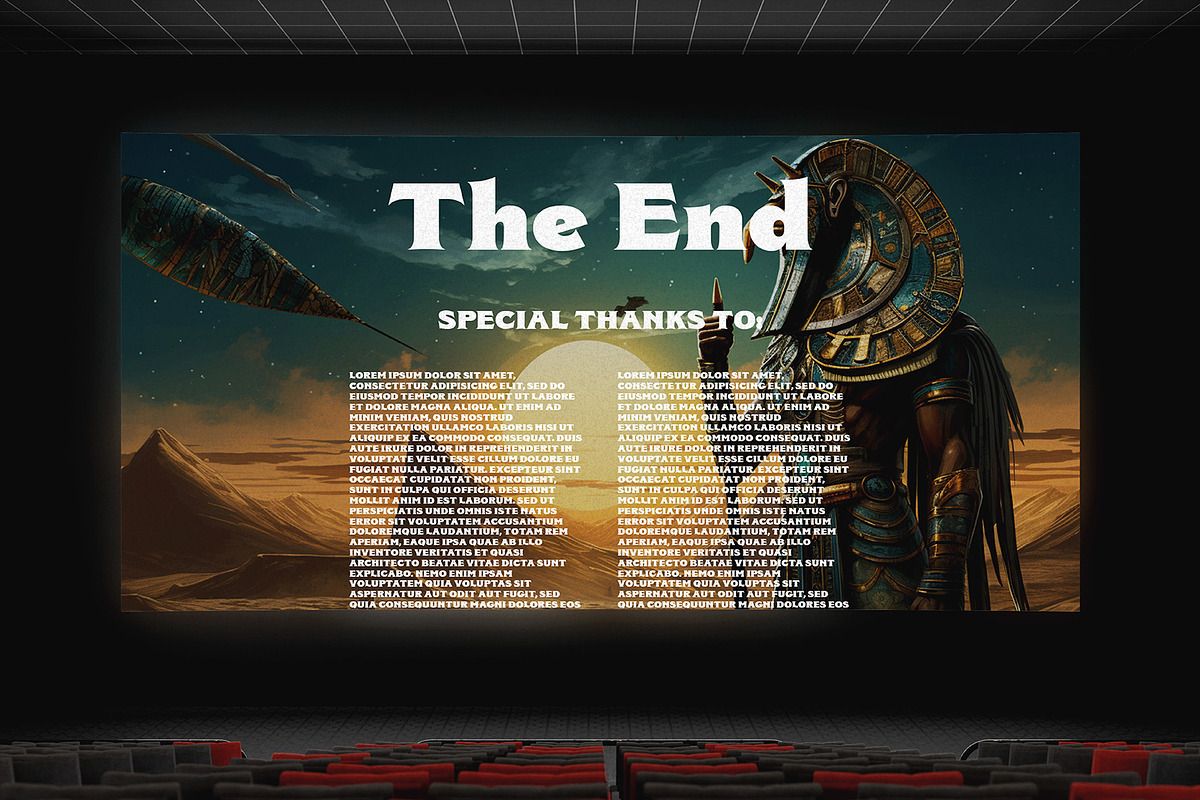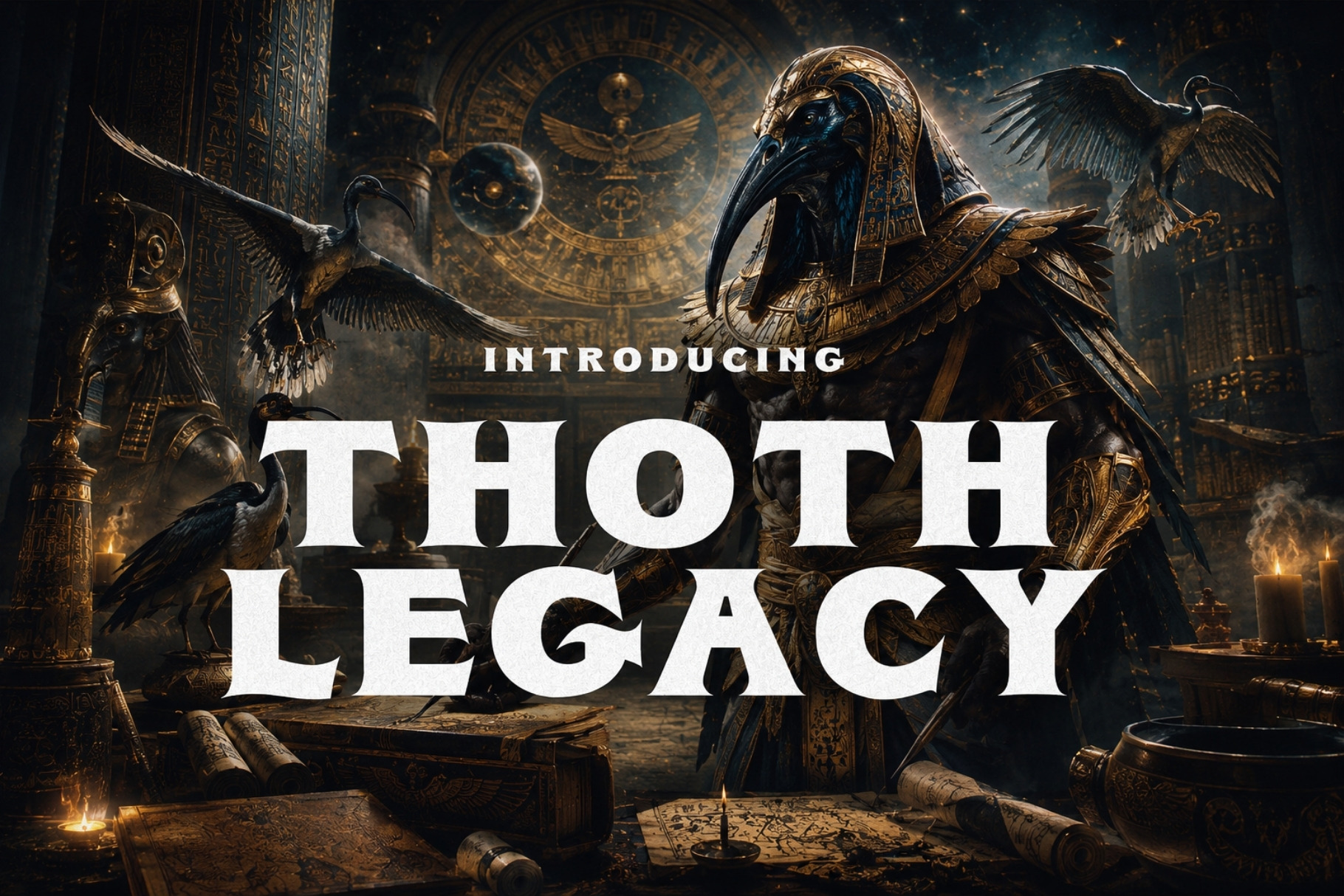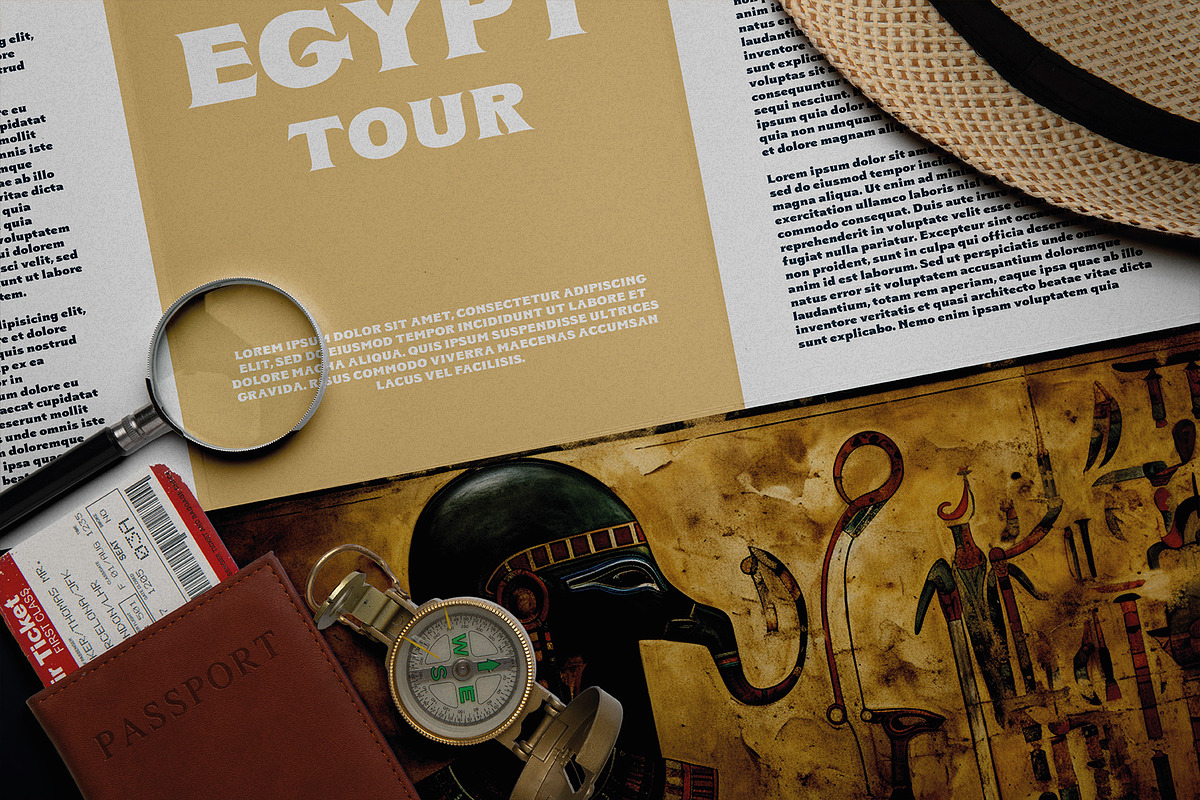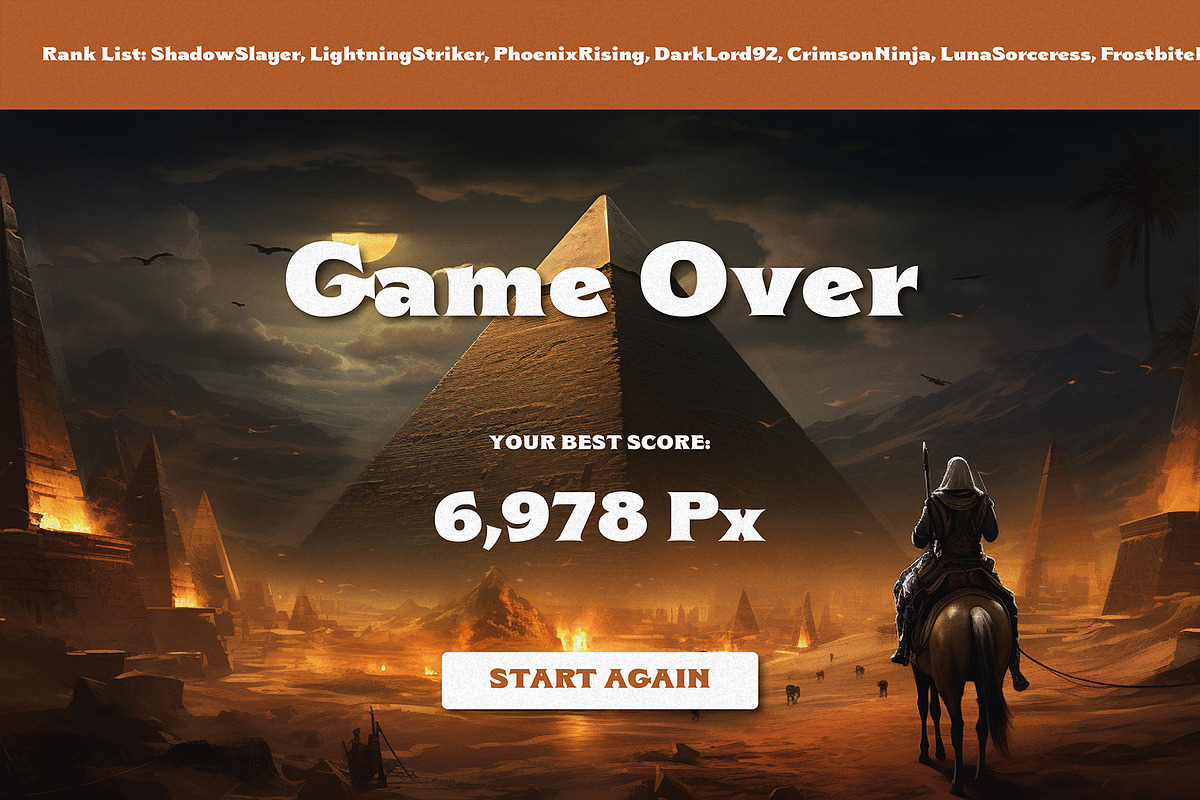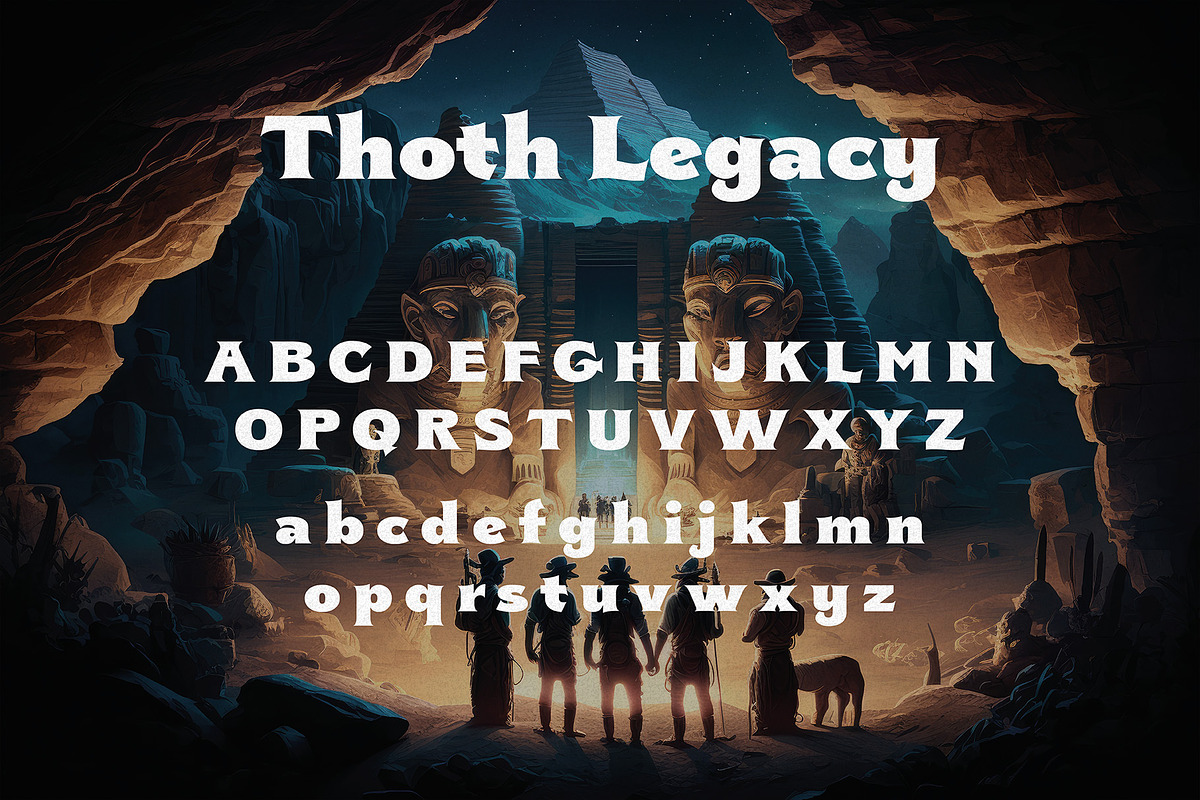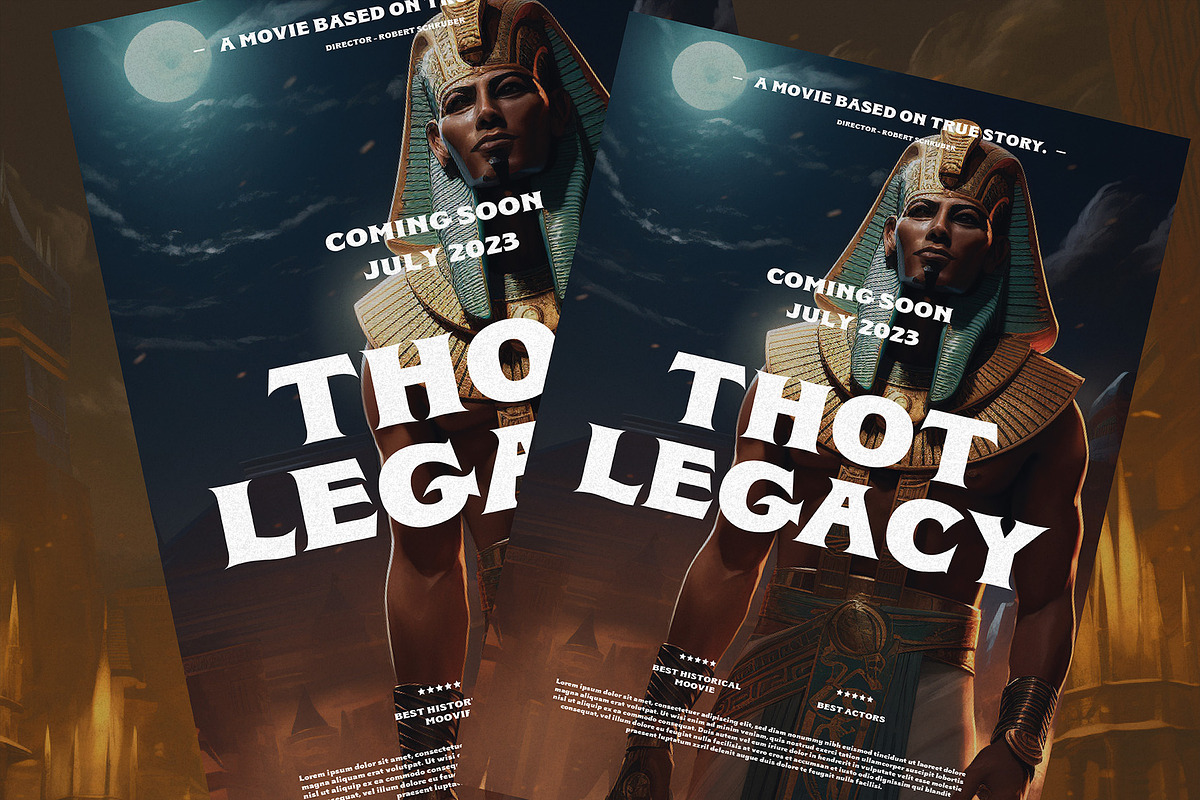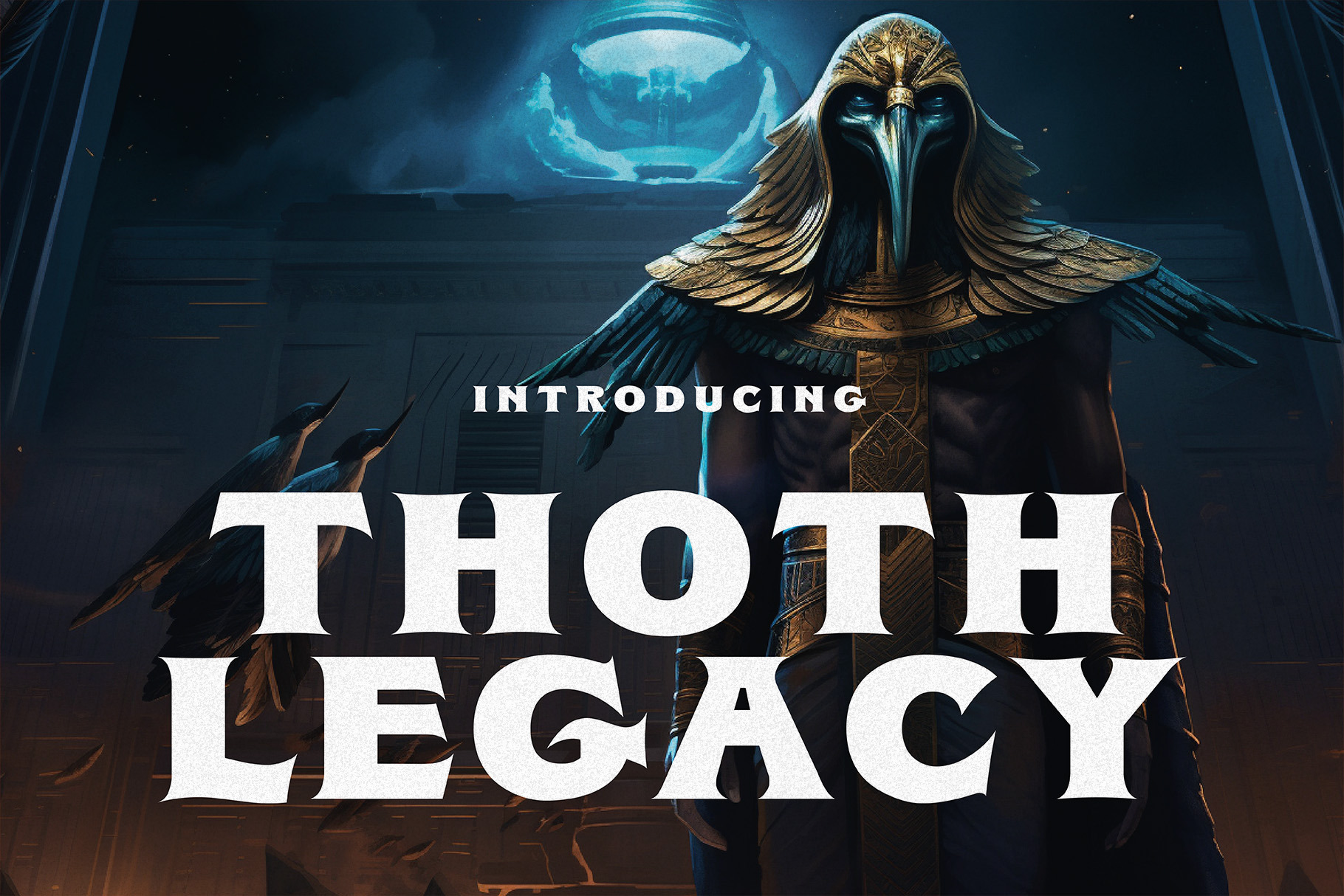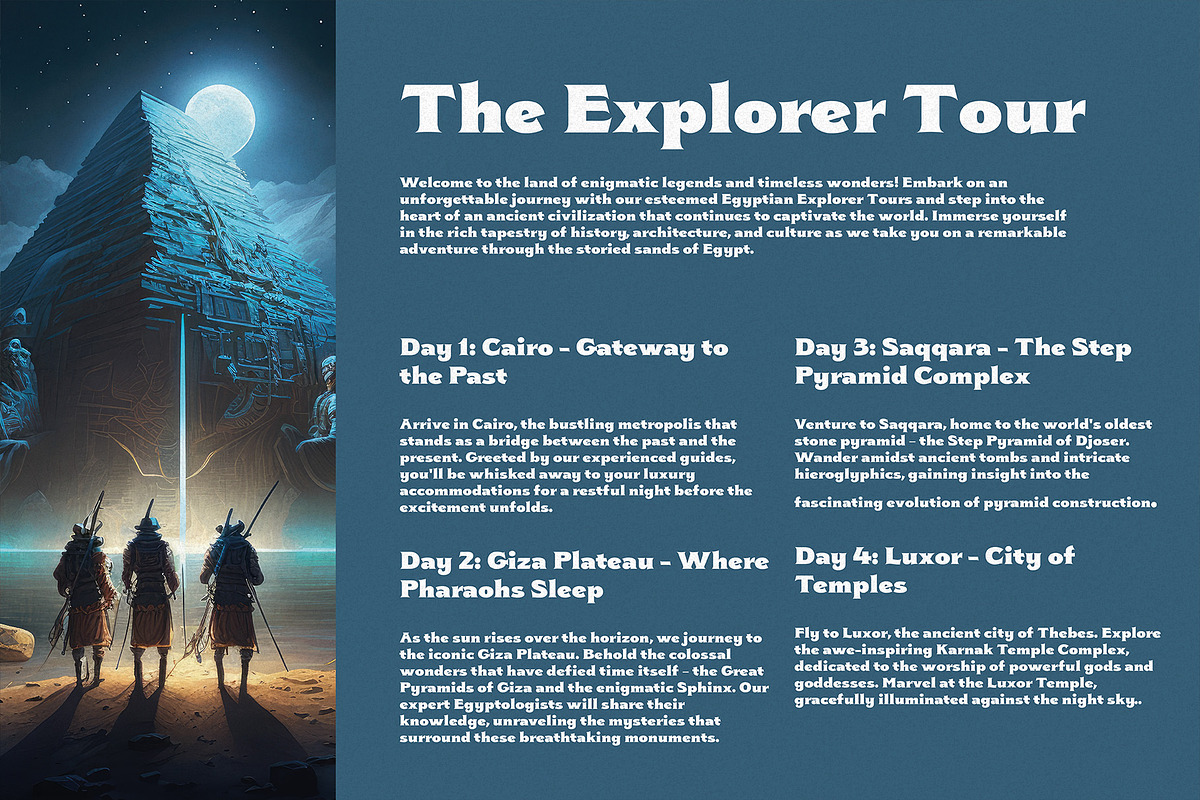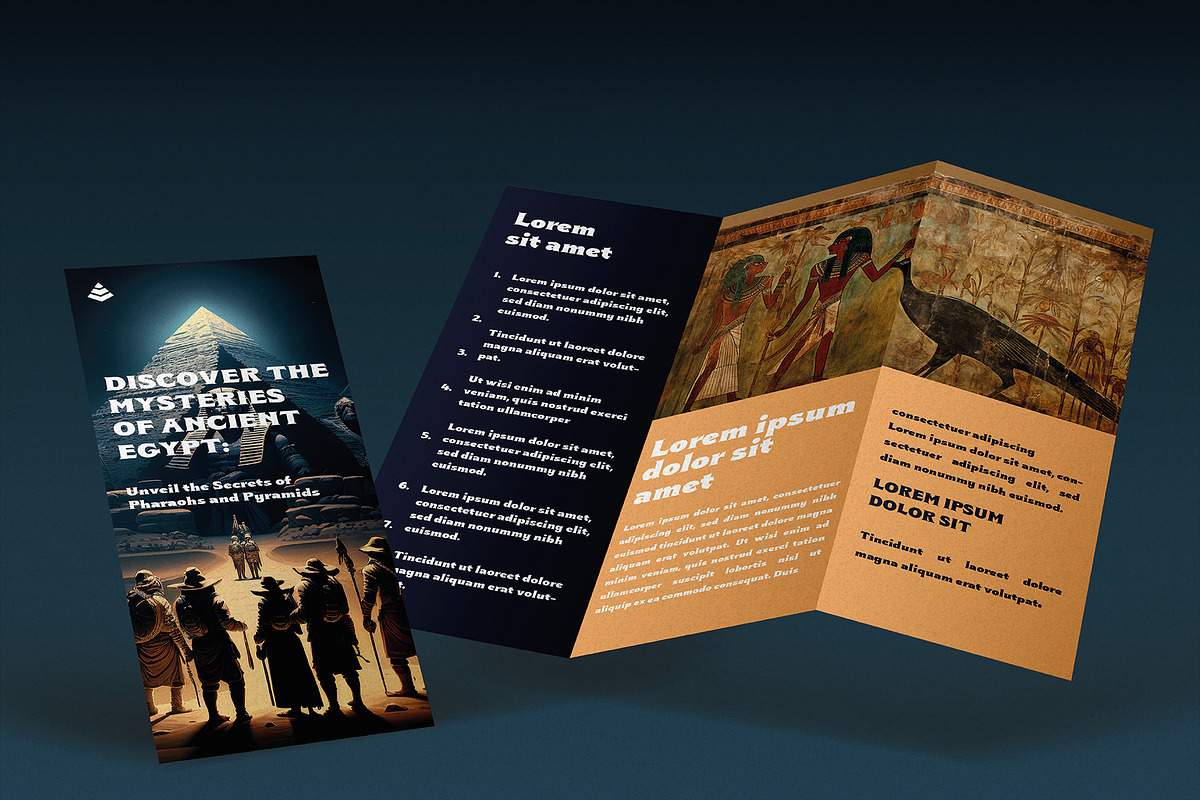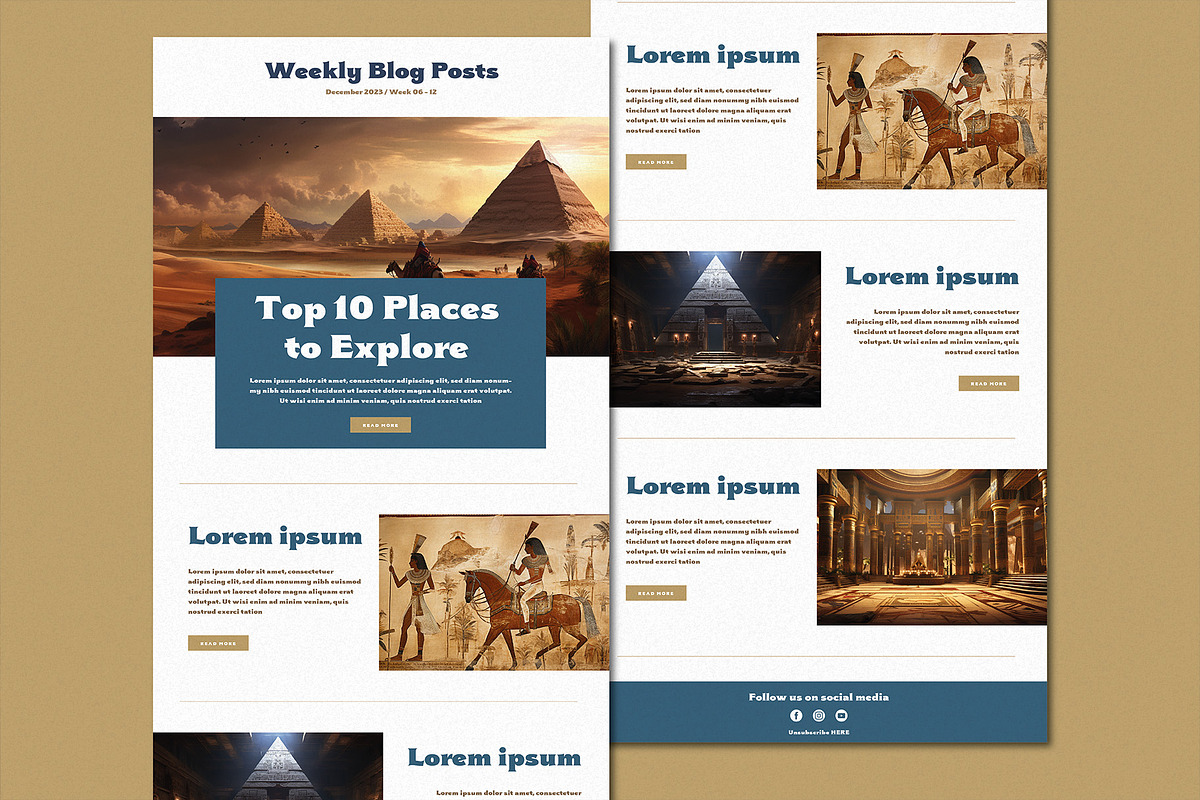
Thoth Legacy - Egyptian Typeface
Prepare to embark on a journey through the sands of history with the Thoth Legacy, an extraordinary Ancient Egyptian Typeface that breathes life into the secrets of antiquity and channels the wisdom of the ages.
The Thoth Legacy isn't just a typeface; it's a portal to a world of ancient wonder. It's your key to crafting designs that transport viewers to the heart of Egypt's storied past, where the sands whisper secrets and hieroglyphs tell tales. Elevate your projects, captivate your audience, and embrace the Thoth Legacy Typeface that's rewriting the rules of design history.